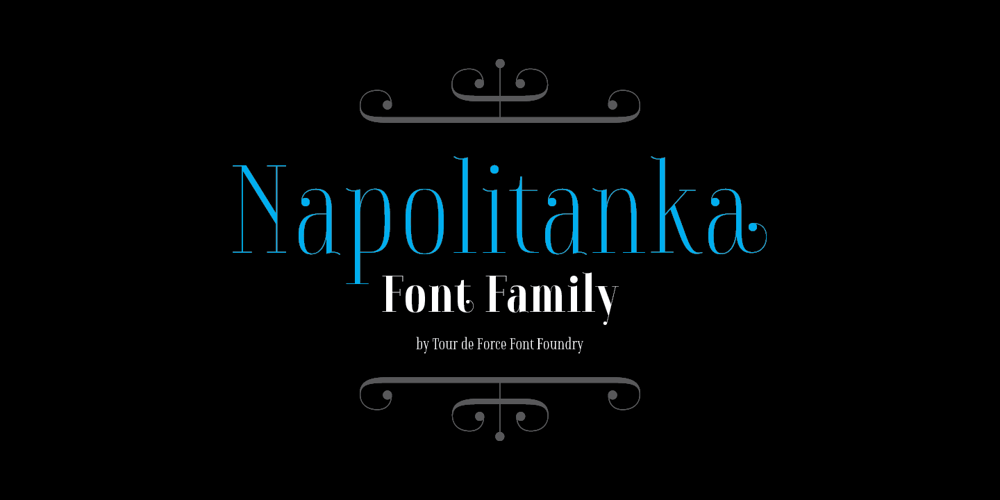
Napolitanka
Napolitanka font
Napolitanka Font Family was designed by Dusan Jelesijevic and published by Tour De Force. Napolitanka contains 3 styles and family package options. Napolitanka is an elegant high contrasted font family. Contains a set of ligatures and swashes in each weight and borders as separate OTF file.